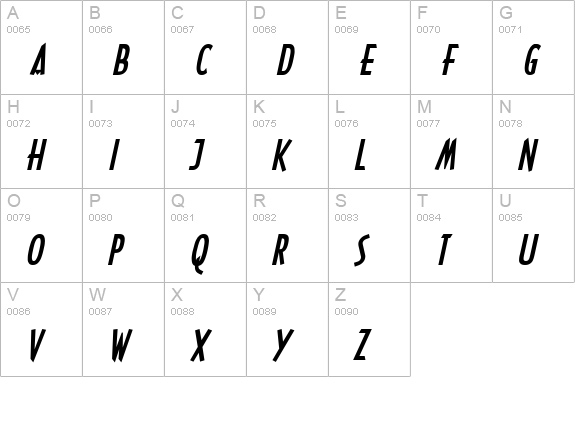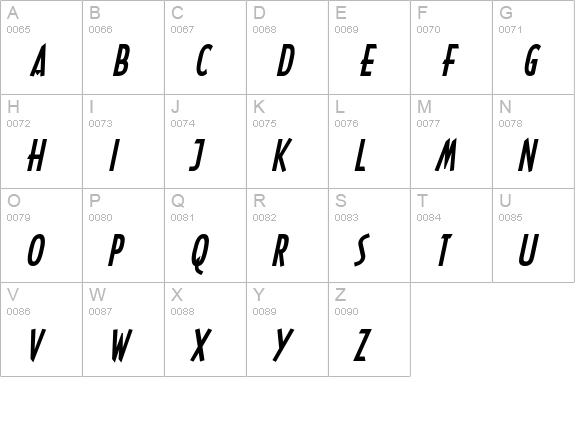
Tech Bold Italic is a strong, high-contrast, italic variant in the Tech typeface family \xE2\x80\x94 well suited to headlines, attention-grabbing titles, and strong calls-to-action.
Introducing Tech Bold Italic, a sleek and modern font that takes your designs to the next level. This bold and italic typeface exudes confidence and sophistication, making it perfect for tech-related projects, branding, and futuristic designs. With its clean lines and geometric shapes, Tech Bold Italic commands attention and adds a touch of professionalism to any design. Whether you're creating a website, designing a logo, or crafting a presentation, this font will elevate your work and make a lasting impression. But what sets Tech Bold Italic apart is not just its impeccable design, but also its accessibility. We believe that great design should be available to everyone, which is why we're thrilled to offer this font for free. Yes, you heard it right - Tech Bold Italic is freely available to download at FontsMarket.com. We understand the importance of having access to high-quality fonts without breaking the bank. By making Tech Bold Italic free, we hope to empower designers, creatives, and enthusiasts alike to unleash their creativity without any limitations. So go ahead, visit FontsMarket.com today and download Tech Bold Italic to add a touch of boldness and elegance to your next project. With its versatility and professional edge, this font is sure to become your go-to choice for all things tech and beyond.